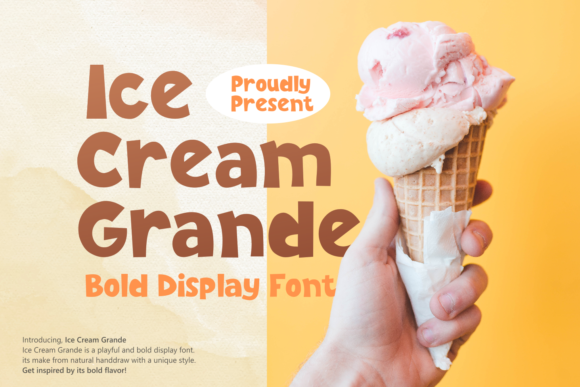
Prepare yourself to add a dollop of fun, a dash of whimsy, and a sprinkle of boldness to your digital creations with Ice Cream Grande, a captivating display font that's sure to turn heads. Its playful and carefree nature is guaranteed to bring a smile to your face, making it the perfect choice for adding personality to your designs.
Immerse yourself in a world of creativity as you effortlessly craft eye-catching logos, stunning social media graphics, captivating website headlines, and enchanting invitations that exude charm and individuality. Whether you're a seasoned designer or just starting your creative journey, Ice Cream Grande is your partner in crafting designs that leave a lasting impression.
Step into a realm where your words take center stage, dressed in the grandeur of Ice Cream Grande. This font is a magnet for attention, drawing the eye to your messages with its bold and playful style. Experience the joy of creating quotes and sayings that resonate, as they leap off the screen with a personality that's impossible to ignore.
With Ice Cream Grande, ordinary text transforms into a visual feast, captivating your audience and leaving them craving more. Its unique charm is sure to leave a lasting impression, making your designs the talk of the town. Embrace the magic of this remarkable font and watch your creations soar to new heights of visual delight.
So, indulge in the sweetness of Ice Cream Grande and let your imagination run wild. Add a scoop of fun, a dash of whimsy, and a sprinkle of boldness to your designs, and prepare to be amazed by the compliments that come your way. Let your creativity shine with Ice Cream Grande, the font that turns every project into a delightful adventure.